Brand new romantic & creative style typography bundle with 6 multilingual display font sets! All these fonts are trendy, classy, modern & elegant so you can use it for any kind of modern or artistic style branding projects or T-shirt designs 😉
6 Romantic & Fancy Fonts from MERCURIAL contains 6 fancy & romantic display font sets for your new projects! Don’t miss this creative & fashion style font & branding bundle 😉
- 6 trendy & decorative display fonts for your new projects!
- Great for any branding projects, posters or T-shirt designs…
- Multilingual support, stylistic alternates & ligatures
Creative display fonts for your new projects!
01. Montgova Script from MERCURIAL
Say hello to Montgova Script! a lovely elegant calligraphy with adorable ornaments. more than 120 included Opentype Stylish Alternate letters and ligatures, allow you to mould your type design any way you like:) It also includes a fancy little bonus ornaments font. A delicate modern calligraphy script ideal for weddings, elegant branding like greeting cards, sublimation, wedding invitation, branding materials, business cards, quotes, posters, aheadings, signature, logos, t-shirt, letterhead, signage, lable, news, posters, badges and adding a lovely feel to your projects. This font is equipped with Latin pro. which covers various languages in the world with a wider range and can be used easily.
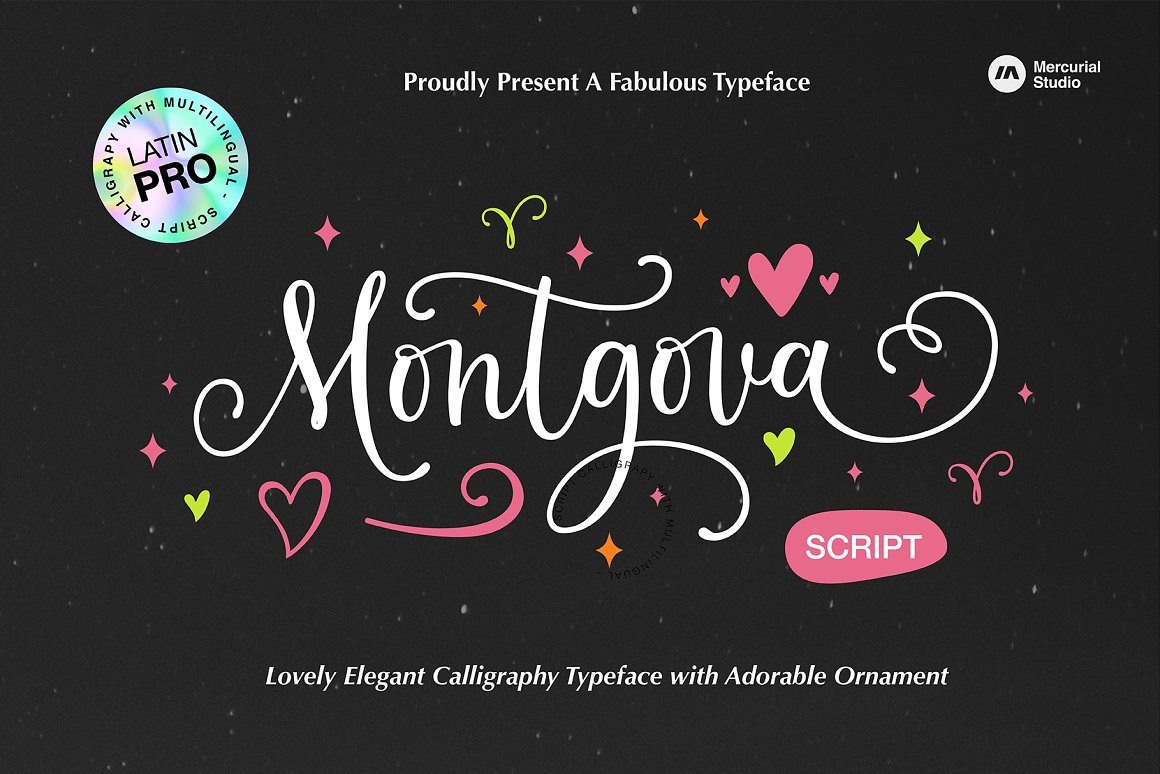
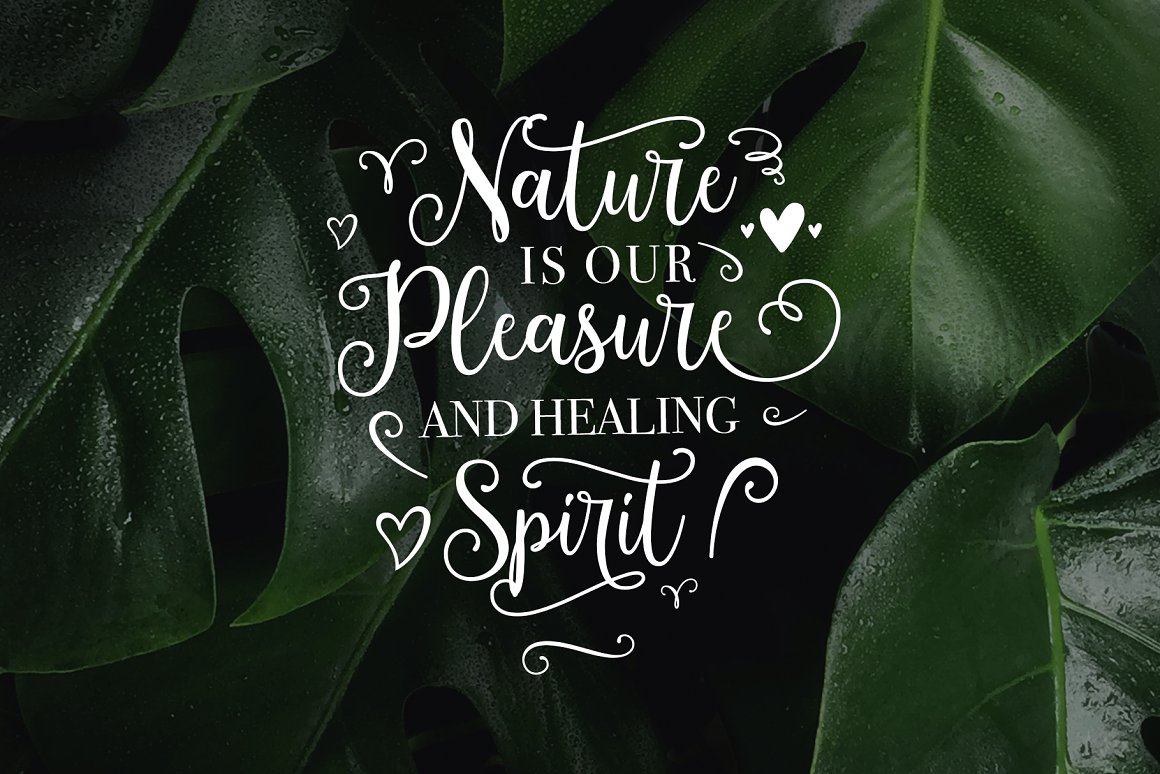
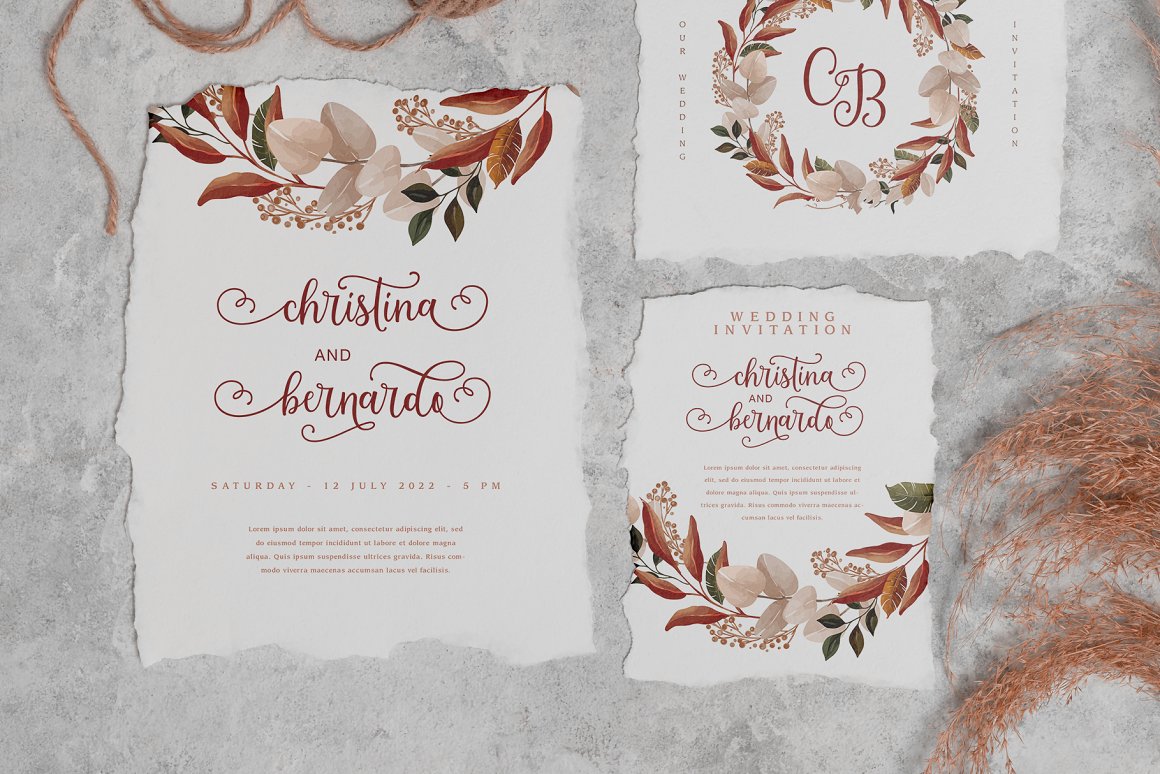
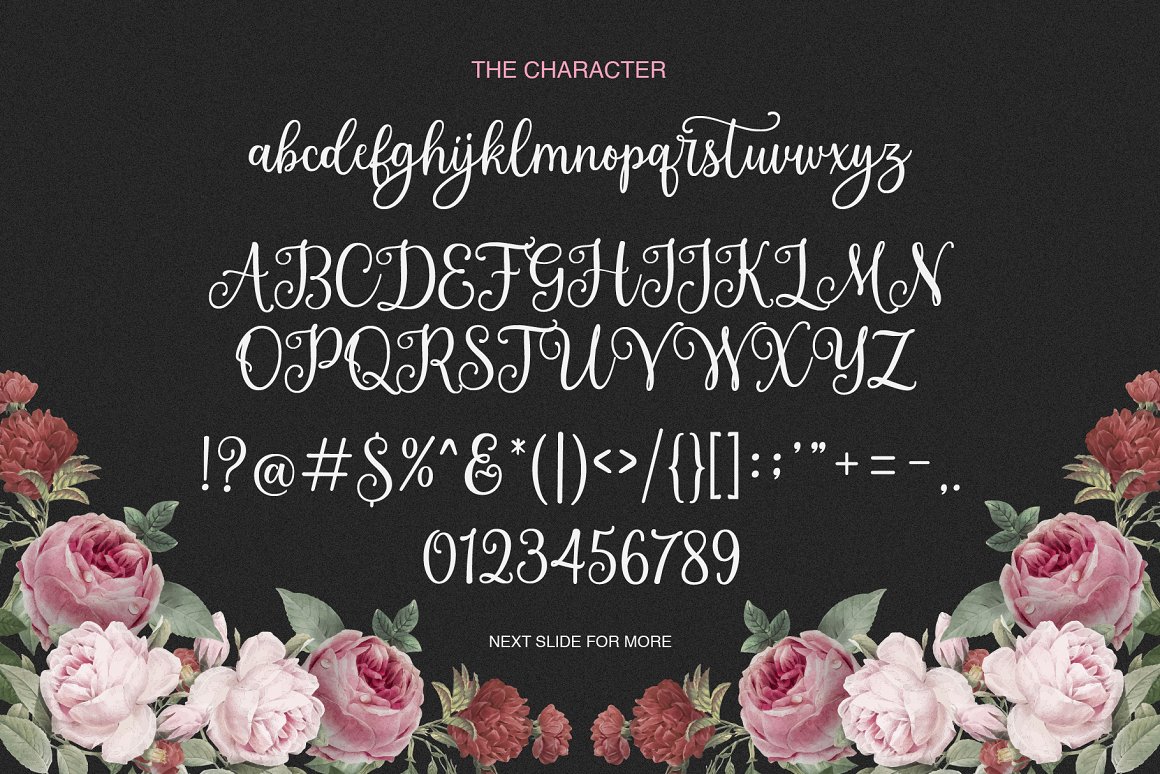
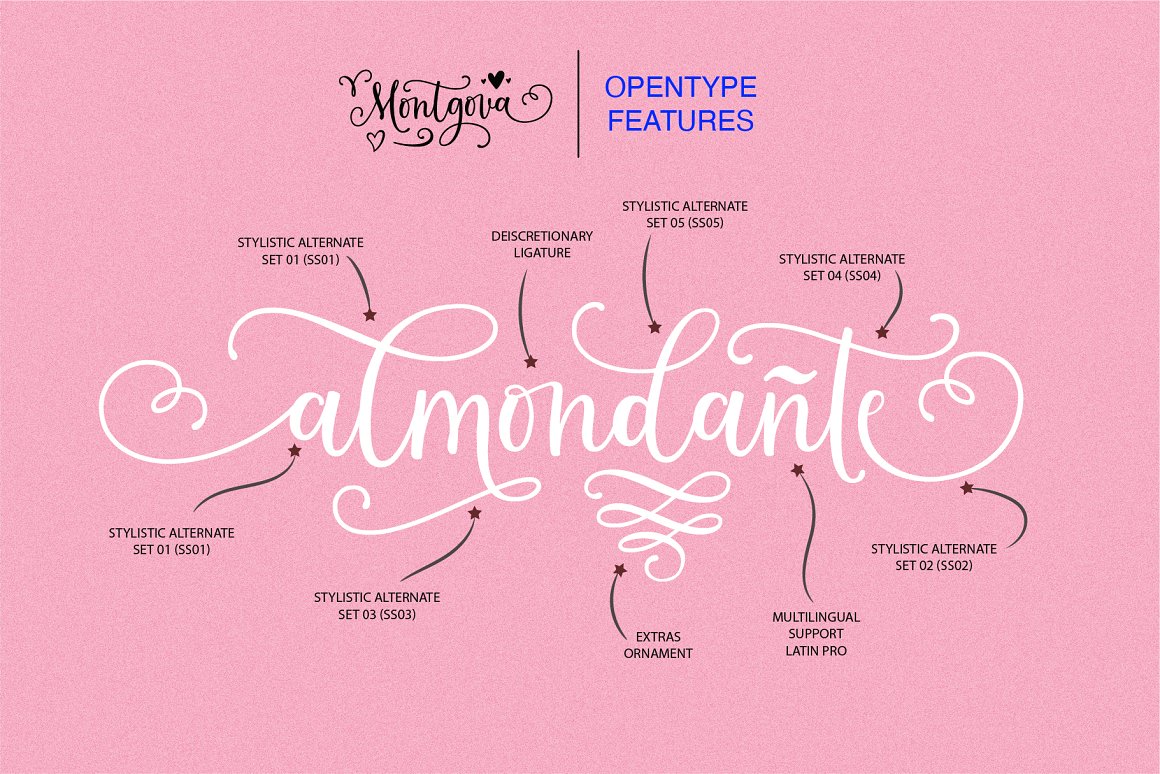
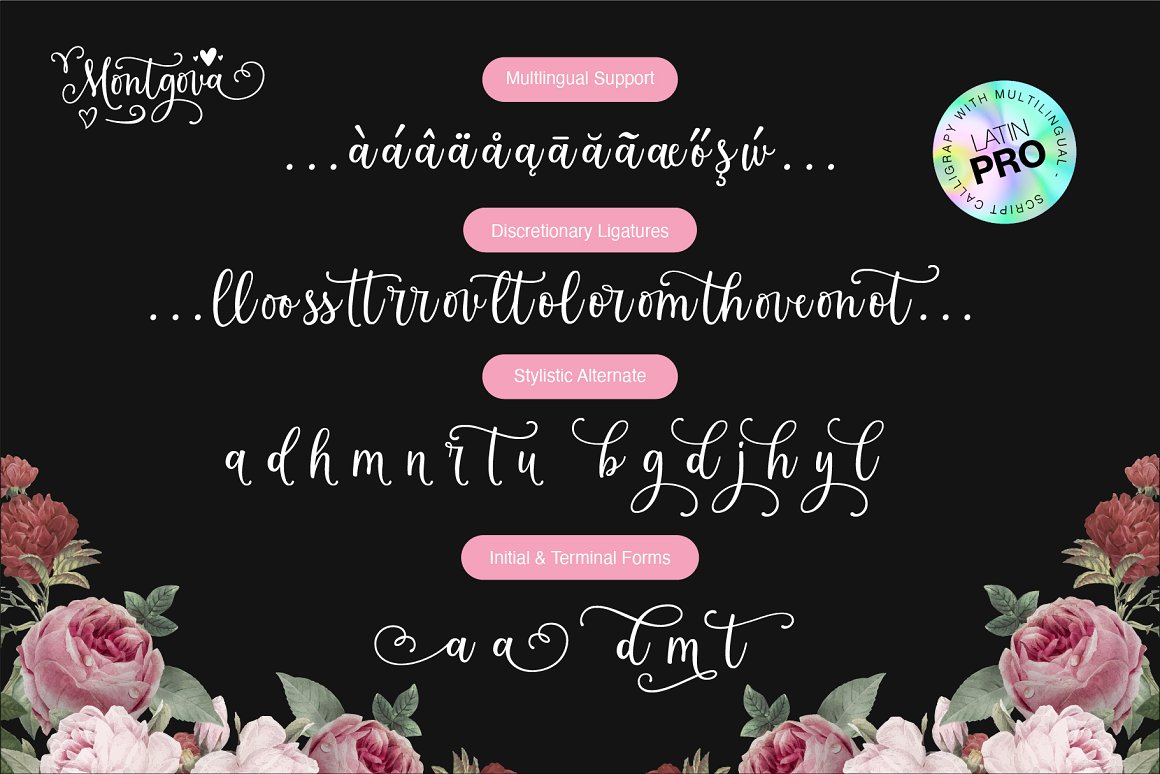
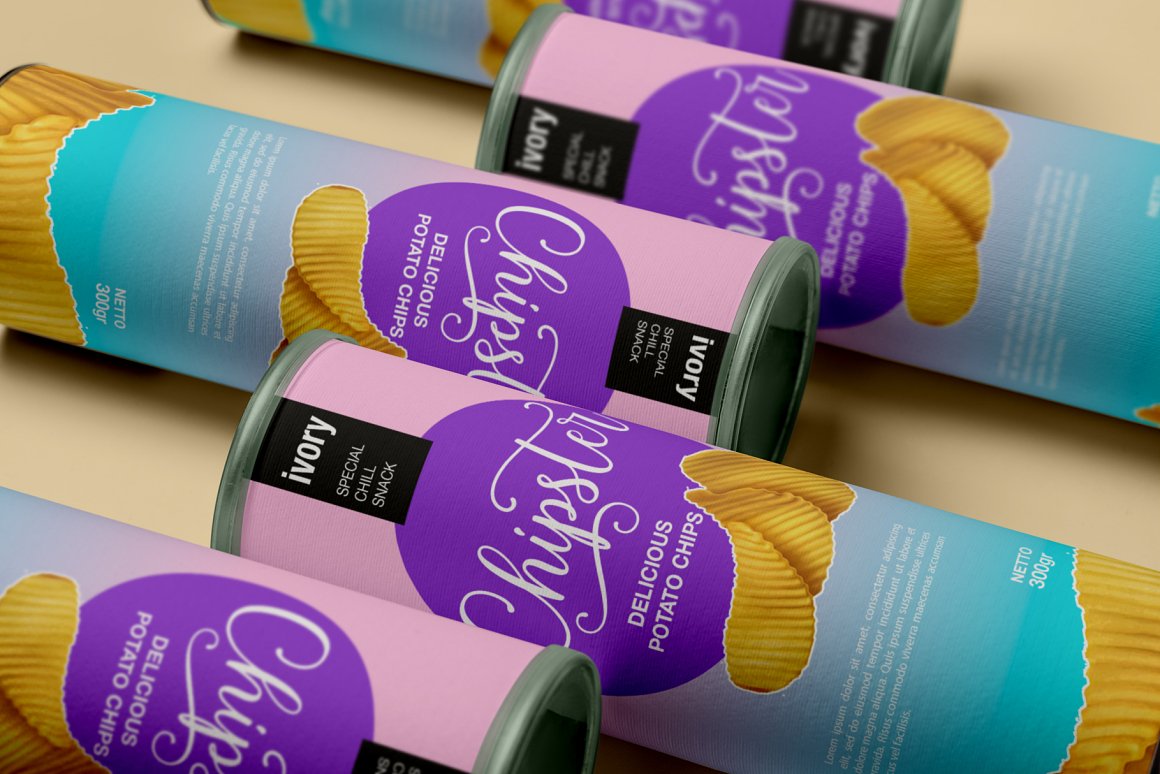
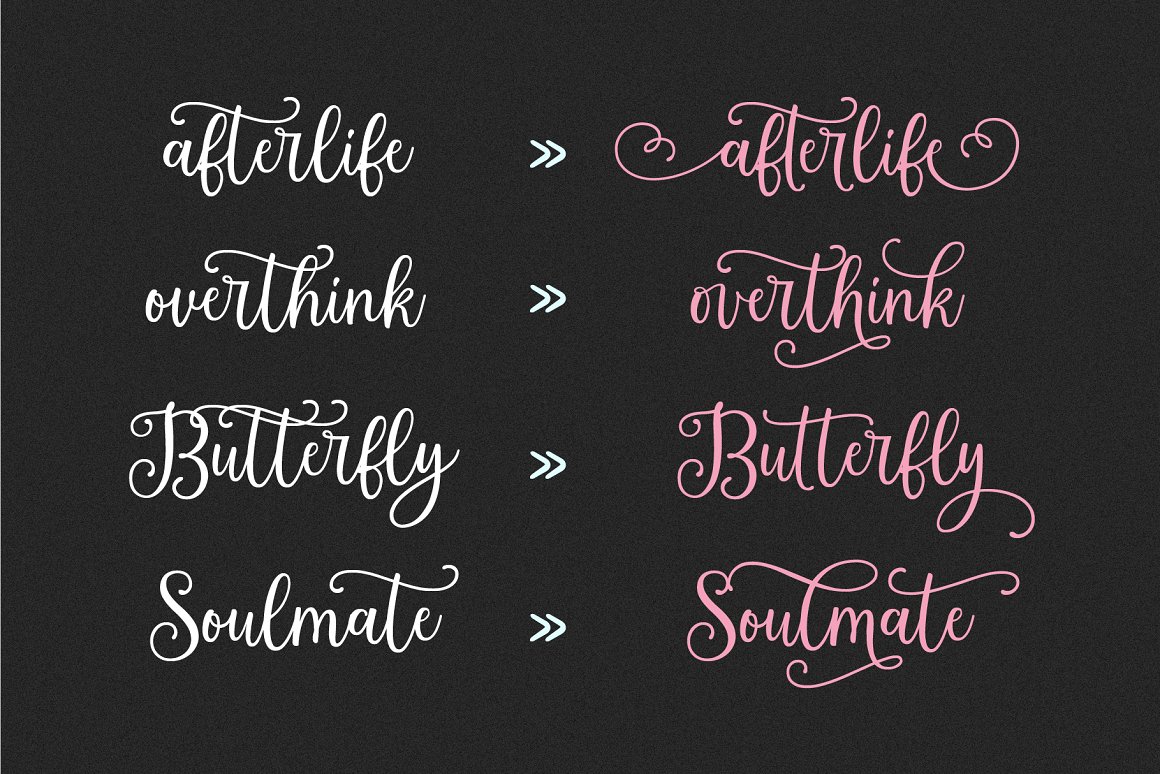
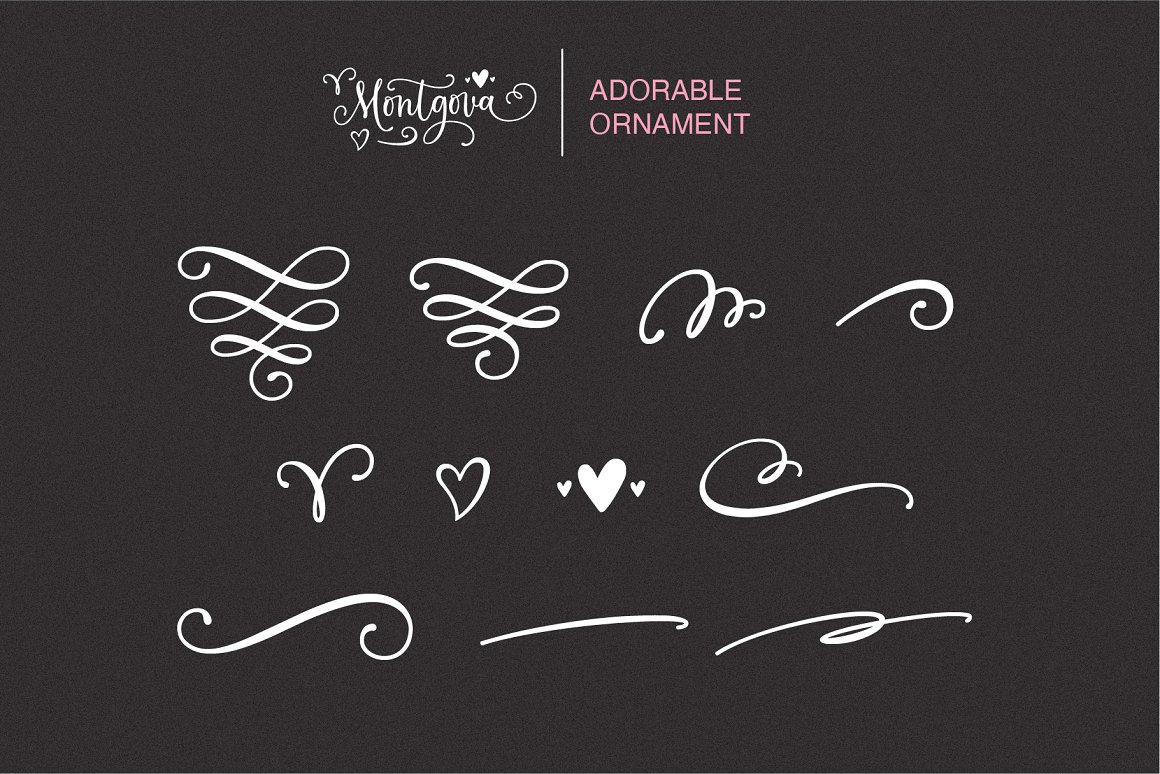
02. Santillana Daughter from MERCURIAL
Hello.. Introducing by Mercurial, Santillana Daughter, A new fresh & modern calligraphy script with a deluxe calligraphy style. The impression is classy, yet modern, making “Santillana Daughter” still catchy for all your creativity. A charming typeface and So beautiful on invitation like greeting cards, branding materials, business cards, quotes, posters, and more!
Features :
Uppercase & Lowercase, International Languange & Symbols Support Punctuation & Number PUA Unicode Range, Standard Ligatures, Discretionary Ligatures, Stylistic Alternates, Swash & many more character.
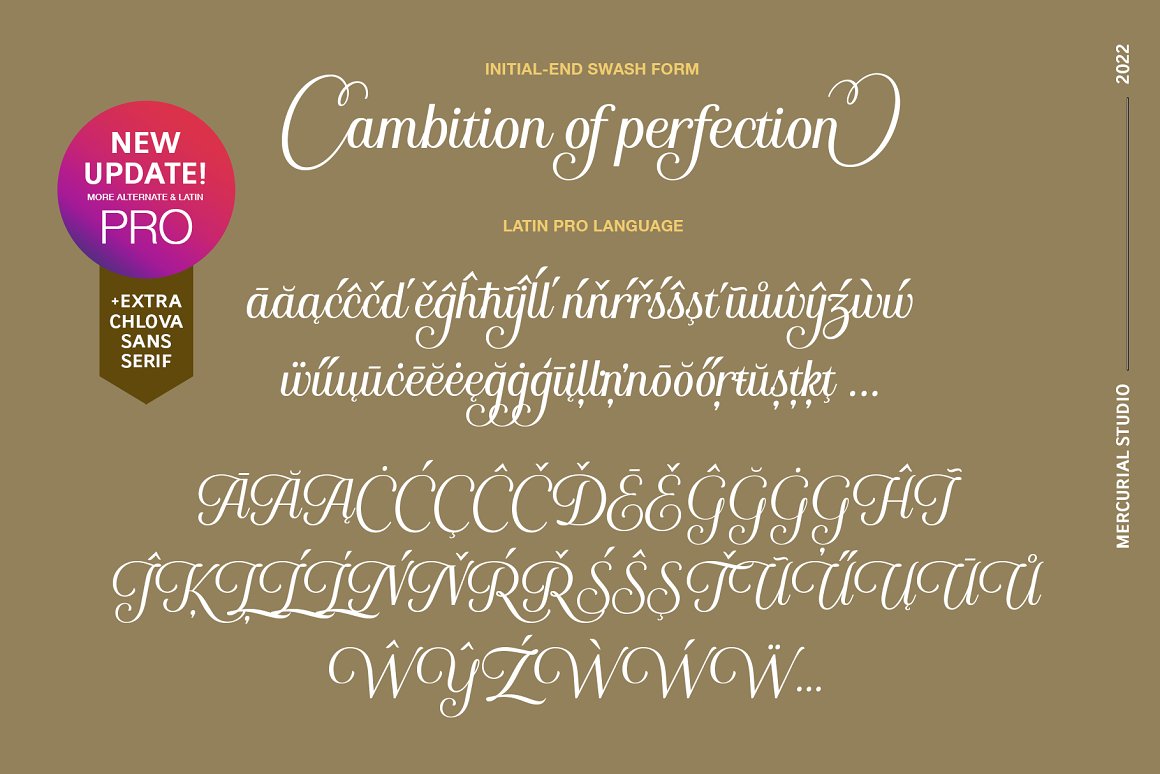
03. Rhositania from MERCURIAL
Hello.. Rhositania is a simple and classy font, comes with a variety of uniqueness and beauty, opentype features such as stylistic alternates, initial and final forms, and ligatures. We keep this font looking elegant, classy, easy to read, stylish, easy to remember, and easy to use. Rhositania Font is the right choice for watermarks on photography, signature or signature logo design, quotes, album covers, business cards, and many other design projects. From business cards to photo watermarks, Rhositania are here to increase your work to the highest level.
Features :
Uppercase & Lowercase, International Languange & Symbols Support Punctuation & Number PUA Unicode Range, Standard Ligatures, Discretionary Ligatures, Stylistic Alternates, Swash & many more character.
04. Bellarosia from MERCURIAL
Bellarosia is lovely script calligraphy made with a touch of sweet, lovely and charming attraction that adds to the impression of a beautiful and elegant. a charming typeface and So beautiful on invitation like greeting cards, sublimation, wedding invitation, branding materials, business cards, quotes, posters, headings, signature, logos, t-shirt, letterhead, signage, lable, news, posters, badges and more. Imagine you get a beautiful and very charming font in the design you make. that would be the answer you wanted right now. Bellarosia has a script typeface and extra letters that allows you to be more free in designing. Hey..look at this. besides you get a font with over 150 alternates, ligatures and swashes. let’s imagine what you can do with all that. yeah that’s awesome.